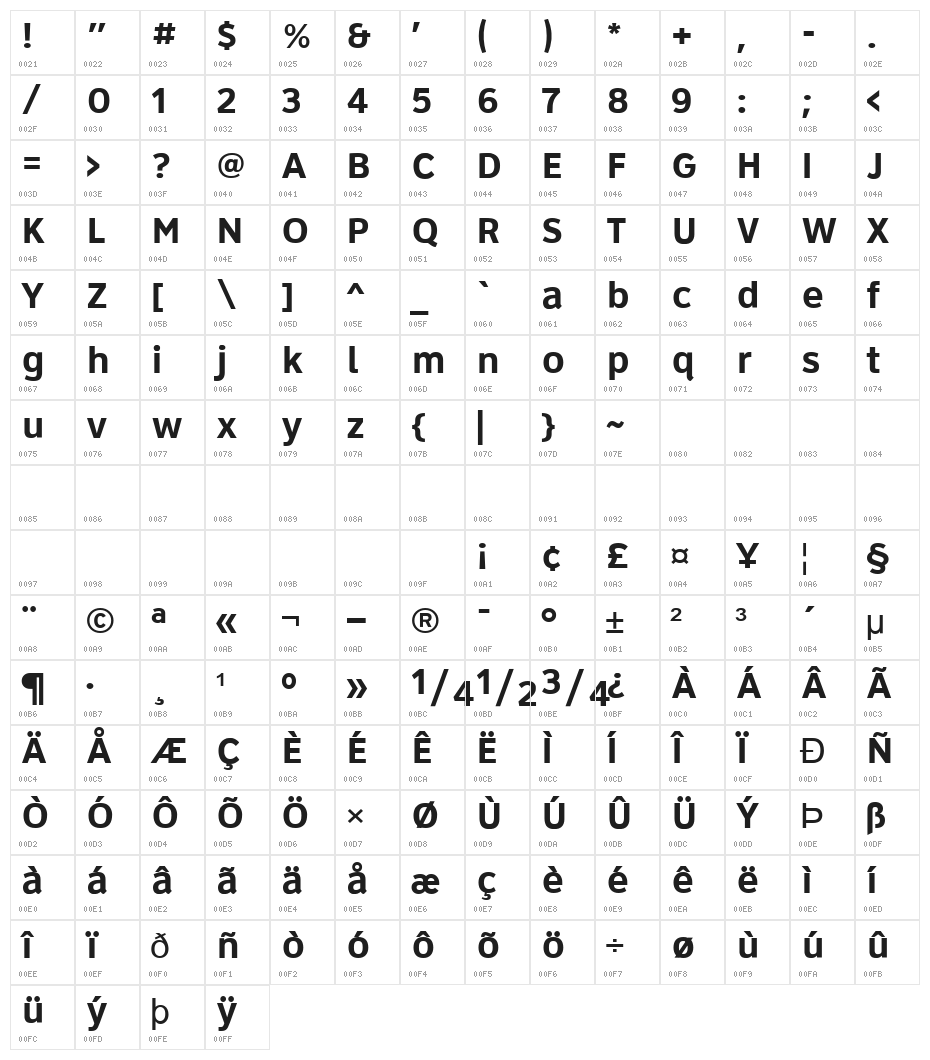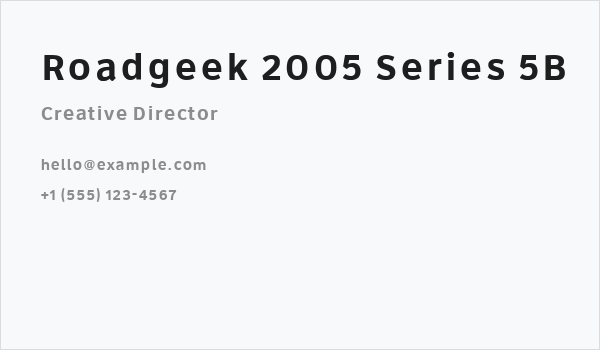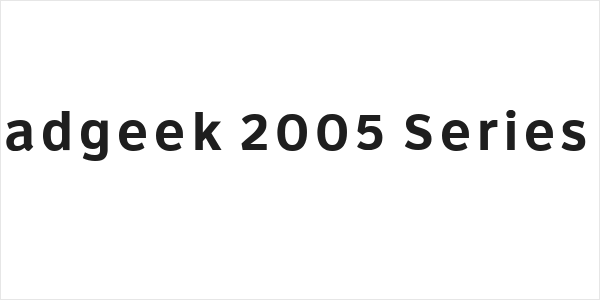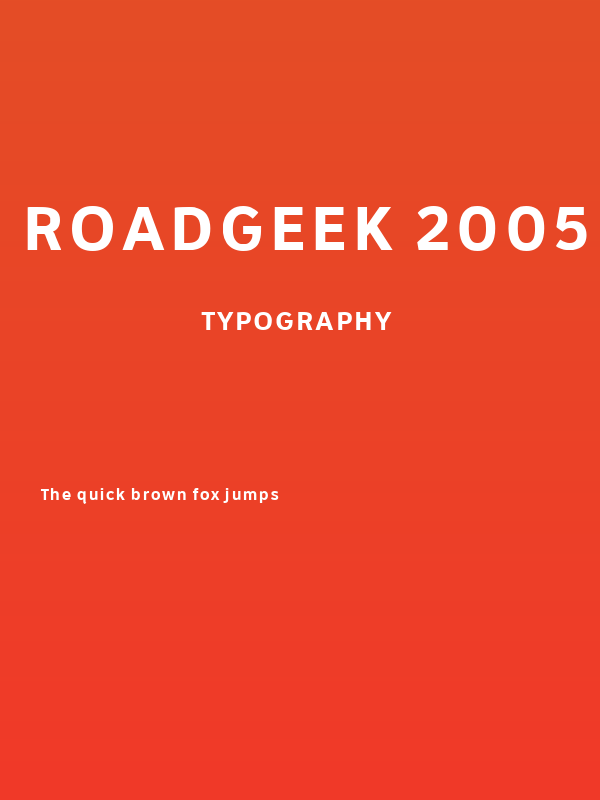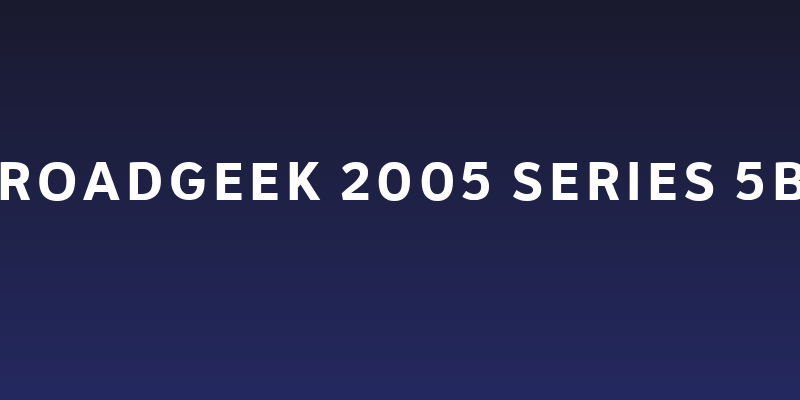
Roadgeek 2005 Series 5B Font
Roadgeek 2005 Series 5B Description
This font features a clean and straightforward sans-serif design, characterized by its uniform stroke width and modern appearance. The uppercase and lowercase letters are well-proportioned, with a slightly condensed form that enhances readability. The numerals are clear and distinct, making them suitable for various applications. The special characters are designed to match the overall aesthetic, ensuring consistency across all glyphs. This font is versatile, offering a professional look that can be used in a variety of contexts.
| Proposed Projects | Ideal for road signage, informational displays, digital interfaces, and branding materials. |